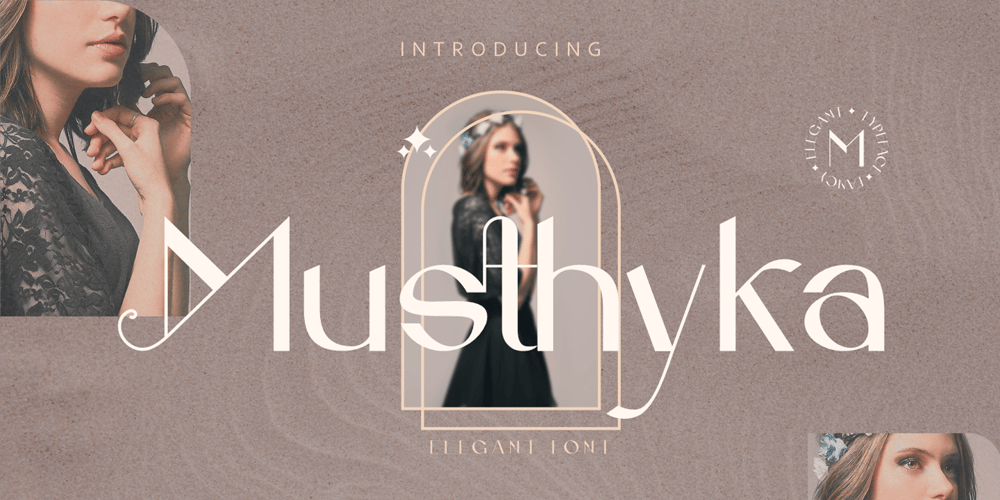
Musthyka Font Family was designed by Raditya Putra Pratama and published by Raditya Type. Musthyka contains 2 styles and family package options. Musthyka is a sans serif typeface in an elegant & modern style with special alternate ligatures and glyphs. Musthyka is ideal for headlines, logos, labels, packaging, postcards, presentations, magazines, invitations, etc.Features:Basic Latin alphabet A-ZLigature & AlternativesNumbers, Punctuation, Currency, Symbols, Mathematical Symbols & Diacritics